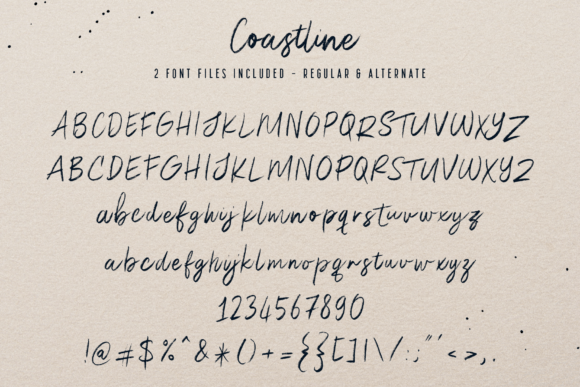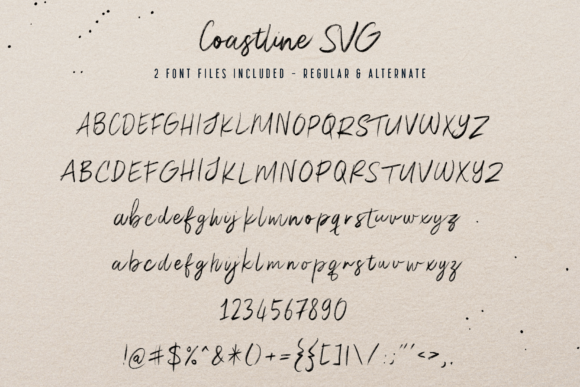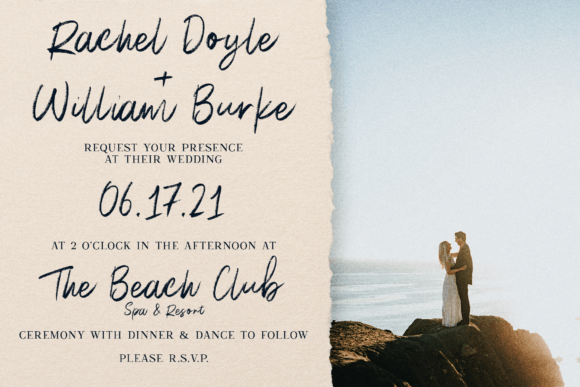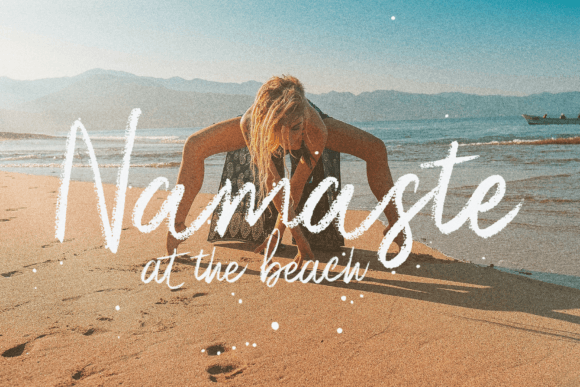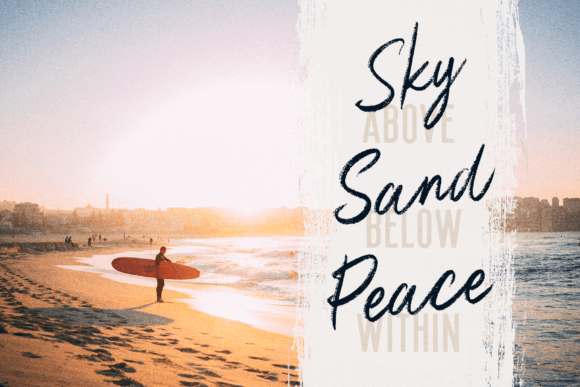
Introducing Coastline Font: Elevate Your Designs with a Textured Script Typeface
Are you tired of using the same old fonts in your designs? Look no further! We’re excited to introduce Coastline, a textured script typeface that adds a touch of natural elegance to any project. With its unique blend of regular and alternate fonts in both .otf and SVG format, Coastline offers unparalleled versatility for designers and crafters alike.
What is Coastline Font?
Coastline is a carefully crafted script typeface that boasts a distinctive textured look. The font comes in two formats: .otf and SVG. The .otf font provides a more solid design, perfect for projects where a subtle texture is desired. On the other hand, the SVG version offers a heavily textured result, ideal for creating visually striking designs that demand attention.
Key Features of Coastline Font
- Regular and Alternate Fonts: Coastline includes both regular and alternate fonts, allowing you to interchange letters for a more natural, handwritten look.
- .otf and SVG Formats: Choose between the .otf font for a solid design or the SVG version for a heavily textured result.
- Endless Design Possibilities: Coastline is perfect for creating quotes, posts, advertisements, apparel, posters, housewares, and more.
Why Choose Coastline Font?
Coastline font is designed to elevate your designs and take them to the next level. Here are just a few reasons why you should consider adding Coastline to your font collection:
- Unique Texture: The textured look of Coastline adds a level of depth and visual interest to your designs, setting them apart from the crowd.
- Versatility: With both .otf and SVG formats, as well as regular and alternate fonts, Coastline can be used in a wide range of design applications.
Design Applications for Coastline Font
Coastline is an incredibly versatile font that can be used in a variety of design applications, including:
- Digital Designs: Use Coastline to create eye-catching social media posts, blog headers, and advertisements.
- Print Designs: Add a touch of elegance to your print designs, including posters, flyers, and brochures.
- Physical Products: Coastline is perfect for designing physical products, such as apparel, home decor, and accessories.
Tips for Using Coastline Font
To get the most out of Coastline, here are a few tips to keep in mind:
- Experiment with Different Formats: Try using both the .otf and SVG versions of Coastline to see which works best for your design.
- Mix and Match Letters: Use the alternate fonts to create a more natural, handwritten look.
- Play with Texture: Experiment with different texture combinations to add depth and visual interest to your designs.
Coastline font is a game-changer for designers and crafters looking to add a touch of elegance and sophistication to their work. With its unique texture, versatility, and ease of use, Coastline is the perfect addition to any font collection. Whether you’re creating digital designs, print materials, or physical products, Coastline is sure to elevate your work and take it to the next level.